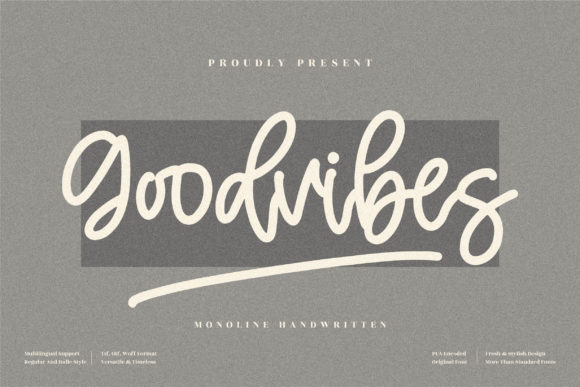
Introducing Goodvibes Font: The Sweet and Friendly Handwritten Font
Are you a designer or crafter looking for a font that can add a personal touch to your projects? Look no further than Goodvibes Font! This sweet and friendly handwritten font is perfect for creating unique and eye-catching designs that stand out from the crowd. In this article, we’ll take a closer look at Goodvibes Font, its features, and how you can use it to take your designs to the next level.
What is Goodvibes Font?
Goodvibes is a beautiful handwritten font that exudes warmth and friendliness. Its natural and unique style makes it incredibly versatile, suitable for a wide range of design projects. Whether you’re creating invitations, greeting cards, posters, or social media graphics, Goodvibes Font is the perfect choice. The font’s playful and approachable feel makes it easy to connect with your audience and convey your message in a fun and engaging way.
Key Features of Goodvibes Font
- Handwritten style: Goodvibes Font has a genuine handwritten look that adds a personal touch to your designs.
- Unique and natural: The font’s unique style makes it stand out from other fonts, while its natural feel makes it easy to read and understand.
- Versatile: Goodvibes Font can be used for a wide range of design projects, from formal to informal.
How to Use Goodvibes Font in Your Designs
Goodvibes Font is incredibly easy to use, and its versatility makes it suitable for a wide range of design projects. Here are some ideas to get you started:
- Invitations and greeting cards: Use Goodvibes Font to create personalized invitations and greeting cards that make your recipients feel special.
- Posters and flyers: Add a playful touch to your posters and flyers with Goodvibes Font, making them stand out from the crowd.
- Social media graphics: Use Goodvibes Font to create engaging social media graphics that connect with your audience.
- Crafting projects: Goodvibes Font is perfect for crafters who want to add a personal touch to their projects, such as scrapbooking, journaling, and card making.
Tips and Tricks for Using Goodvibes Font
Here are some tips and tricks to help you get the most out of Goodvibes Font:
- Experiment with colors: Goodvibes Font looks great in a variety of colors, so don’t be afraid to experiment and find the perfect color scheme for your design.
- Mix and match: Combine Goodvibes Font with other fonts to create a unique and eye-catching design.
- Play with sizes: Use different font sizes to create visual interest and add emphasis to your design.